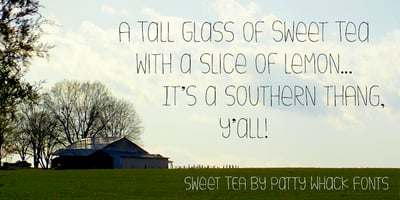
Sweet Tea PW
Sweet Tea PW font
Sweet Tea PW Font Family was designed by published by Patty Whack Fonts. Sweet Tea PW contains 1 styles and family package options. Sweet Tea is a thin, handwritten and simplistic font reminds me of the simple, yet serene days on the front porch swing with a Summer breeze. Sipping an ice cold glass of sweet tea on a hot, sunny day — there’s nothing better.